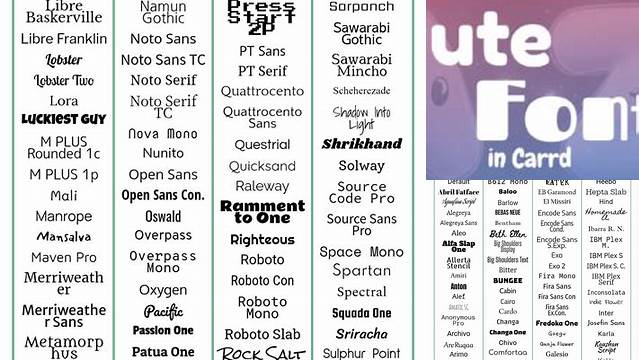
Cute Carrd Fonts: Elevate Your Website Design
Hey guys! Ever wondered how to make your Carrd site pop? The secret often lies in the fonts you choose! Let’s dive into the world of cute Carrd fonts and how they can totally transform your website's vibe. We're going to explore a bunch of options and give you the lowdown on making the best choices for your project. Let's get started!
Carrd Font Pairing Ideas
Choosing just one cute font for your Carrd site is only half the battle. You also need to think about font pairing. The right font pairing can elevate your website's overall design, while a poor pairing can make your site look unprofessional and cluttered. Here's a breakdown of how to pair fonts effectively:
Serif and Sans-Serif Combinations
One of the most classic and reliable font pairing strategies is to combine a serif font with a sans-serif font. Serif fonts, like Times New Roman or Georgia, have small decorative strokes at the end of each letter, giving them a traditional and formal feel. Sans-serif fonts, like Arial or Helvetica, lack these strokes and have a cleaner, more modern appearance. The contrast between these two types of fonts can create a visually appealing and balanced design. For example, you could use a serif font for your headings and a sans-serif font for your body text. This will help to draw the reader's eye to the headings while still providing a readable and clean body of text. Alternatively, you could use a sans-serif font for your headings and a serif font for your body text. This can create a more modern and minimalist look. When choosing a serif and sans-serif combination, it's important to consider the overall tone and style of your website. If you're going for a more traditional and formal look, you might want to choose a serif font with more pronounced strokes. If you're going for a more modern and minimalist look, you might want to choose a sans-serif font with clean lines and a simple design. Ultimately, the best way to find the perfect serif and sans-serif combination is to experiment with different fonts and see what works best for your site. Don't be afraid to try out different combinations until you find one that you love. With a little bit of trial and error, you can create a font pairing that will elevate your website's design and help you achieve your desired aesthetic.
Complementary Font Styles
Using complementary font styles involves pairing fonts that share similar characteristics but have enough contrast to stand out from each other. This approach creates a cohesive and harmonious look while still adding visual interest. For example, you could pair two different sans-serif fonts, one with a bolder weight and the other with a lighter weight. This will create a subtle contrast that will help to differentiate the headings from the body text. Another option is to pair two different serif fonts, one with a more traditional design and the other with a more modern design. This will create a more sophisticated and nuanced look. When choosing complementary font styles, it's important to consider the overall tone and style of your website. If you're going for a more playful and whimsical look, you might want to choose fonts with rounded edges and soft curves. If you're going for a more serious and professional look, you might want to choose fonts with sharp angles and clean lines. It's also important to pay attention to the spacing between the letters and the lines of text. Make sure that the fonts are easy to read and that there is enough space between the letters and lines to prevent the text from looking cramped or cluttered. Experiment with different font sizes and weights to find the perfect balance between readability and visual appeal. With a little bit of creativity and attention to detail, you can create a font pairing that will elevate your website's design and help you achieve your desired aesthetic.
Using Fonts with Different Weights and Sizes
Another effective way to create visual hierarchy and interest is by using fonts with different weights and sizes. This allows you to emphasize certain elements on your page and guide the reader's eye through your content. For example, you could use a larger and bolder font for your headings to make them stand out from the body text. This will help to draw the reader's attention to the most important information on your page. You could also use a smaller and lighter font for your captions or footnotes to make them less prominent. This will help to prevent them from distracting the reader from the main content. When choosing fonts with different weights and sizes, it's important to consider the overall tone and style of your website. If you're going for a more minimalist and modern look, you might want to use a limited number of font weights and sizes. This will create a clean and uncluttered design. If you're going for a more dynamic and expressive look, you might want to experiment with a wider range of font weights and sizes. This will allow you to create a more visually interesting and engaging design. It's also important to pay attention to the contrast between the different font weights and sizes. Make sure that there is enough contrast to make the text easy to read and to prevent it from looking too similar. Experiment with different combinations of font weights and sizes to find the perfect balance between readability and visual appeal. With a little bit of creativity and attention to detail, you can create a font pairing that will elevate your website's design and help you achieve your desired aesthetic.
Best Font Combinations for Carrd
To help get you started, here are some of the best font combinations that pair well with Carrd:
Montserrat and Open Sans
Montserrat is a geometric sans-serif font that is clean, modern, and highly readable. It works well for headings and body text alike. Open Sans is another popular sans-serif font that is known for its neutrality and legibility. When paired together, Montserrat and Open Sans create a balanced and harmonious look that is perfect for a wide range of websites. Montserrat's slightly bolder and more geometric design adds a touch of personality, while Open Sans provides a clean and unobtrusive body text. This combination is particularly well-suited for websites that prioritize readability and a modern aesthetic. It's a versatile choice that can be used for everything from business websites to personal blogs.
Playfair Display and Montserrat
Playfair Display is a high-contrast serif font that exudes elegance and sophistication. It's best used for headings and titles, where its refined details can truly shine. Montserrat, as mentioned earlier, is a versatile sans-serif font that complements Playfair Display beautifully. The contrast between the serif and sans-serif styles creates a visually appealing and balanced design. Playfair Display adds a touch of sophistication and formality, while Montserrat provides a clean and modern counterpoint. This combination is ideal for websites that want to convey a sense of luxury and refinement. It's often used for fashion blogs, beauty websites, and other creative projects.
Raleway and Lato
Raleway is a sleek and stylish sans-serif font that is known for its distinctive W and w characters. It works well for headings and subheadings, adding a touch of personality to your website. Lato is a clean and readable sans-serif font that is perfect for body text. When paired together, Raleway and Lato create a modern and sophisticated look that is both visually appealing and easy to read. Raleway's unique letterforms add a touch of flair, while Lato provides a solid and reliable foundation. This combination is well-suited for websites that want to convey a sense of innovation and creativity. It's often used for tech startups, design agencies, and other forward-thinking businesses.
Oswald and Roboto
Oswald is a condensed sans-serif font that is bold and impactful. It's best used for headings and titles, where its strong presence can grab the reader's attention. Roboto is a modern and versatile sans-serif font that is known for its clean lines and excellent readability. When paired together, Oswald and Roboto create a visually striking and highly functional design. Oswald adds a sense of urgency and importance, while Roboto provides a clear and legible body text. This combination is ideal for websites that need to convey a lot of information in a concise and engaging way. It's often used for news websites, online magazines, and other content-rich platforms.
Cute Fonts for Headlines
Headlines are the first thing visitors see, so choosing the right font is crucial. Here are some cute fonts that work wonders for headlines:
Amatic SC
Amatic SC is a hand-drawn, condensed font that’s super playful and eye-catching. It’s perfect for adding a touch of whimsy and informality to your headlines. The unique, slightly uneven letterforms give it a friendly and approachable feel, making it ideal for websites targeting a younger audience or those with a fun and lighthearted tone. Amatic SC works particularly well for headings on blogs, personal websites, or creative portfolios. Its condensed design also means it can fit comfortably into tighter spaces, making it a versatile choice for various layouts. However, due to its distinctive style, it’s best used sparingly to avoid overwhelming the reader. Pair it with a simple, clean sans-serif font for the body text to ensure readability and balance. Overall, Amatic SC is a fantastic option for adding a touch of personality and charm to your Carrd site's headlines.